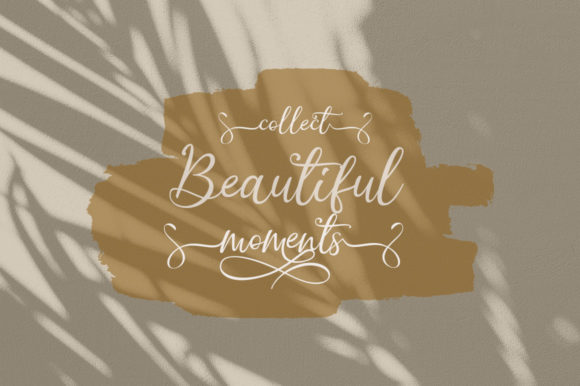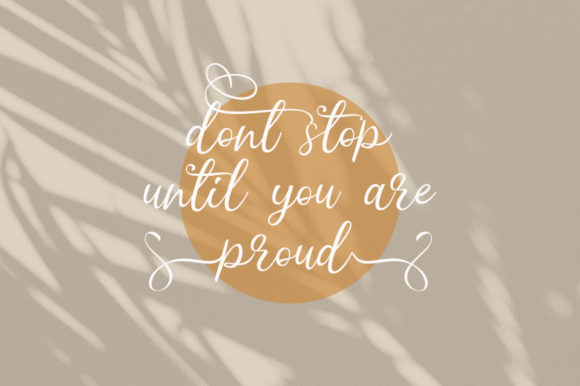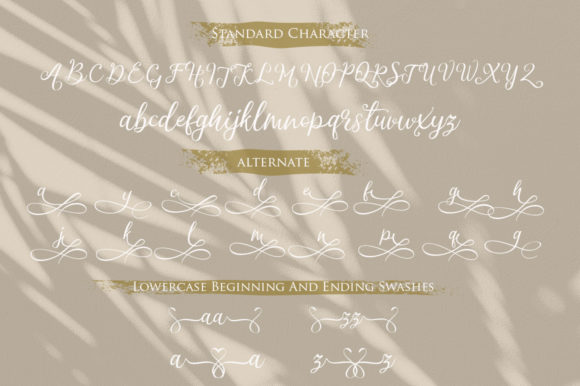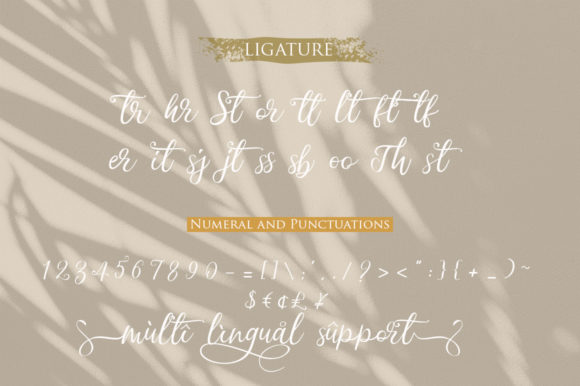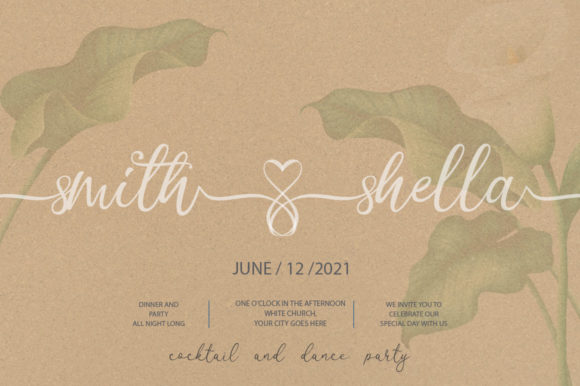
Introducing Blithen Font: The Ultimate Romantic Calligraphy Typeface
Are you a designer or crafter looking for a font that exudes romance and sweetness? Look no further than Blithen Font, a beautiful calligraphy typeface that is sure to capture the hearts of your audience. With its unique and elegant design, Blithen Font is perfect for a wide range of creative projects, from logos and wedding invitations to headings, t-shirts, and more.
The Characteristics of Blithen Font
Blithen Font is a romantic and sweet calligraphy typeface that boasts characters that dance along the baseline, giving it a playful and carefree feel. Despite its casual nature, Blithen Font still manages to convey an air of elegance and sophistication, making it perfect for projects that require a touch of refinement. The font’s flowing lines and curves create a sense of movement and fluidity, adding to its charm and character.
Uses for Blithen Font
One of the best things about Blithen Font is its versatility. Its unique design makes it suitable for a wide range of creative projects, including:
- Logos: Create a lasting impression with a custom logo that features Blithen Font. Perfect for businesses, events, or personal brands.
- Wedding Invitations: Make your wedding invitations truly special with Blithen Font. Its romantic and elegant design is sure to set the tone for your big day.
- Headings: Add a touch of sophistication to your headings and titles with Blithen Font. Perfect for blogs, articles, and more.
- T-Shirts: Create custom t-shirts that feature Blithen Font. Great for events, promotions, or personal use.
- Letterhead: Elevate your business correspondence with Blithen Font. Add a touch of elegance to your letters and documents.
- Signage: Create eye-catching signage that features Blithen Font. Perfect for events, businesses, or public displays.
- Labels: Add a personal touch to your labels with Blithen Font. Great for products, gifts, or personal use.
- News: Create engaging and stylish news articles with Blithen Font. Perfect for online publications or blogs.
- Posters: Create stunning posters that feature Blithen Font. Great for events, promotions, or advertising.
- Badges: Design custom badges that feature Blithen Font. Perfect for events, businesses, or personal use.
Why Choose Blithen Font?
So why choose Blithen Font over other calligraphy typefaces? Here are just a few reasons:
- Unique Design: Blithen Font boasts a unique and elegant design that is sure to stand out from the crowd.
- Versatility: Blithen Font is suitable for a wide range of creative projects, from logos and wedding invitations to headings and t-shirts.
- Elegance: Despite its casual nature, Blithen Font still manages to convey an air of elegance and sophistication.
- Easy to Read: Blithen Font is easy to read, making it perfect for body text and headlines.
Tips for Using Blithen Font
Here are a few tips for using Blithen Font in your creative projects:
- Pair with Other Fonts: Pair Blithen Font with other fonts to create a unique and stylish combination.
- Experiment with Colors: Experiment with different colors to find the perfect match for your project.
- Use for Headlines: Use Blithen Font for headlines and titles to add a touch of elegance and sophistication.
- Keep it Simple: Keep your design simple and clean to let Blithen Font shine.
In conclusion, Blithen Font is a romantic and sweet calligraphy typeface that is perfect for designers and crafters looking to add a touch of elegance and sophistication to their creative projects. With its unique design, versatility, and ease of use, Blithen Font is sure to become a favorite in your font collection. So why wait? Download Blithen Font today and start creating stunning designs that will capture the hearts of your audience.